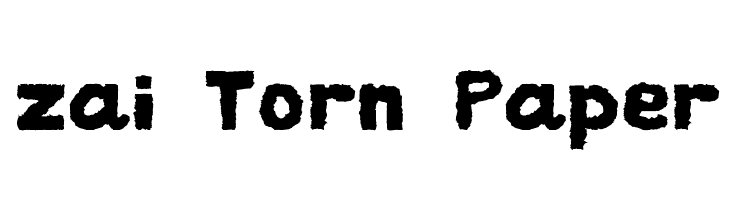
( Fonts by Tomasz Skowroński )
A playful, hand-drawn font with bold, dynamic strokes and a felt-tip pen style.
Bold, three-dimensional font with a modern, industrial look.
A bold, pixelated font with a retro, digital aesthetic.
( Fonts by www.blambot.com )
A bold, angular font with a rebellious, graffiti-like aesthetic.
A modern, light sans-serif font with excellent readability and clean lines.
( Fonts by Garisman Studio )
A playful, cartoonish font with rounded edges and a hand-drawn style.
( Fonts by dcoxy | Greg Medina )
A playful, hand-drawn font with bold, rounded characters and a whimsical style.
A modern serif font with clean lines and balanced proportions.
( - www.puchakhon.com )
A bold, distressed font with a vintage, rugged appearance.
设计师偏爱 zai Seagull Felt-tip Pen, QuaelGothic, ODEON-DROP, M41_LOVEBIT and KillCrazyBB,因为其造型干净、适用范围广—— 从品牌识别到落地页、海报都能胜任。